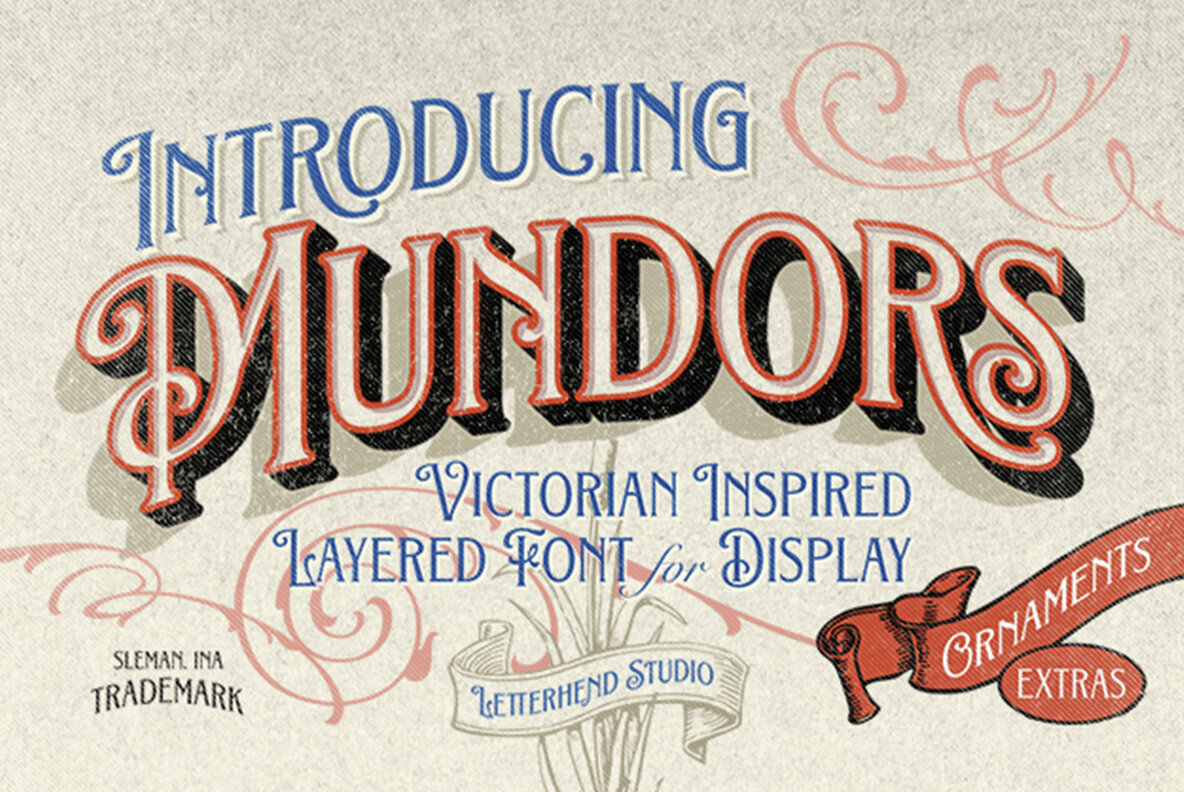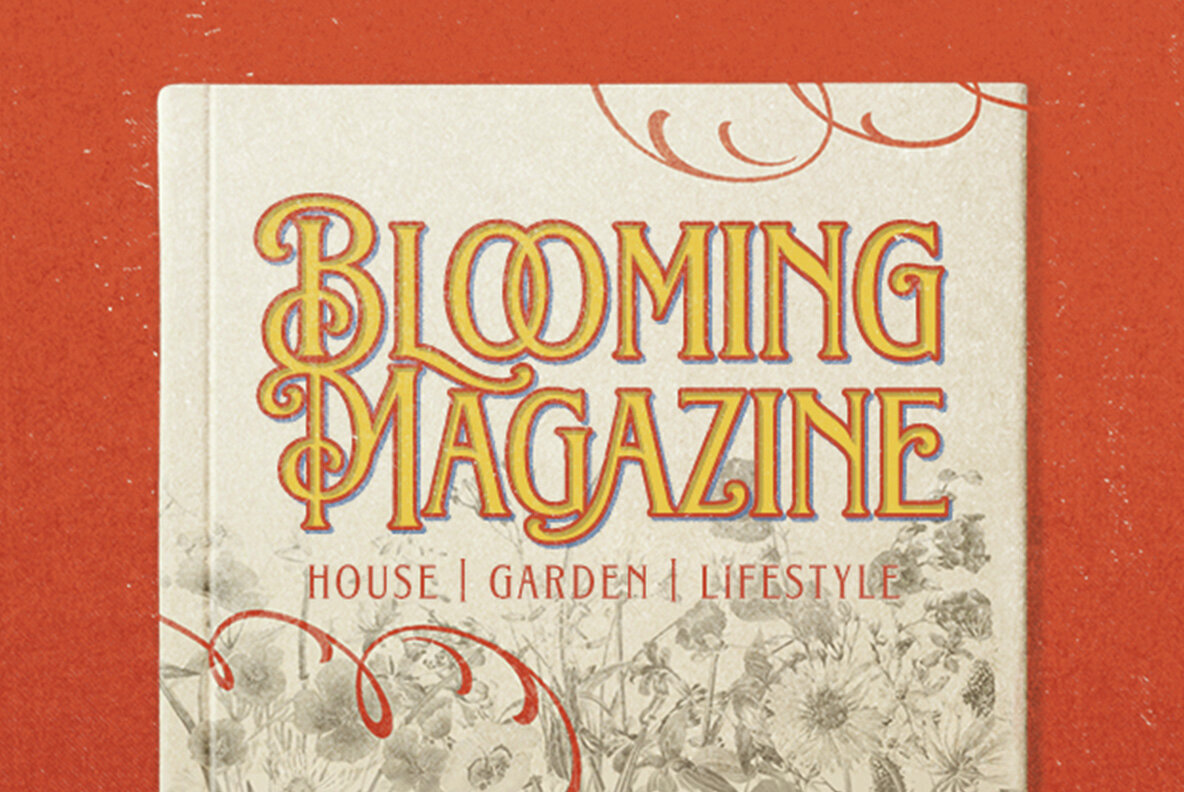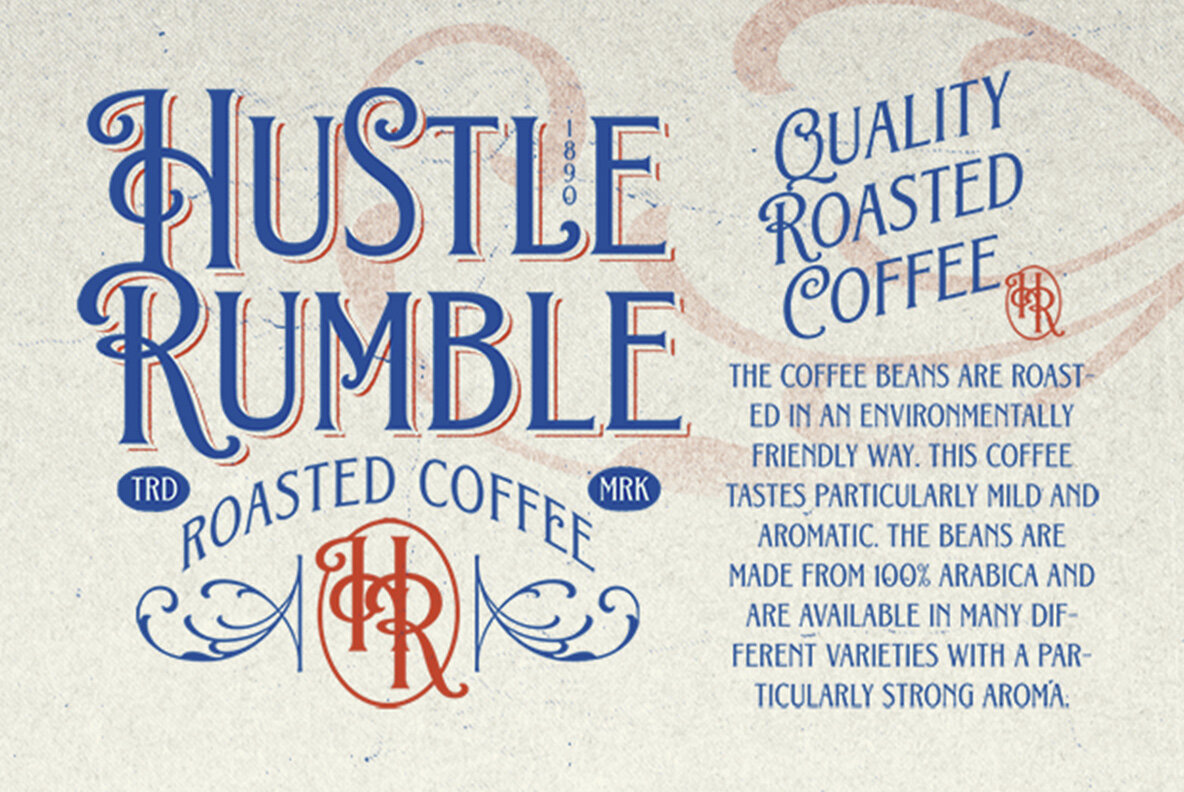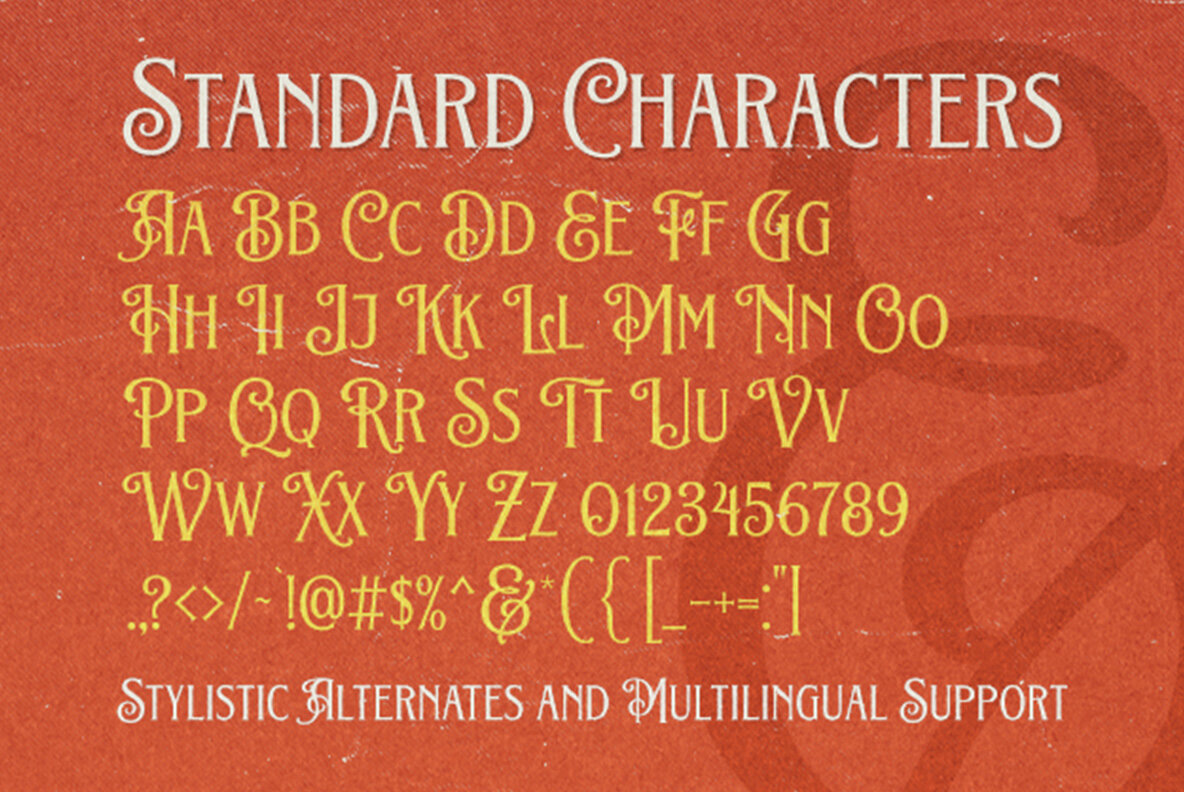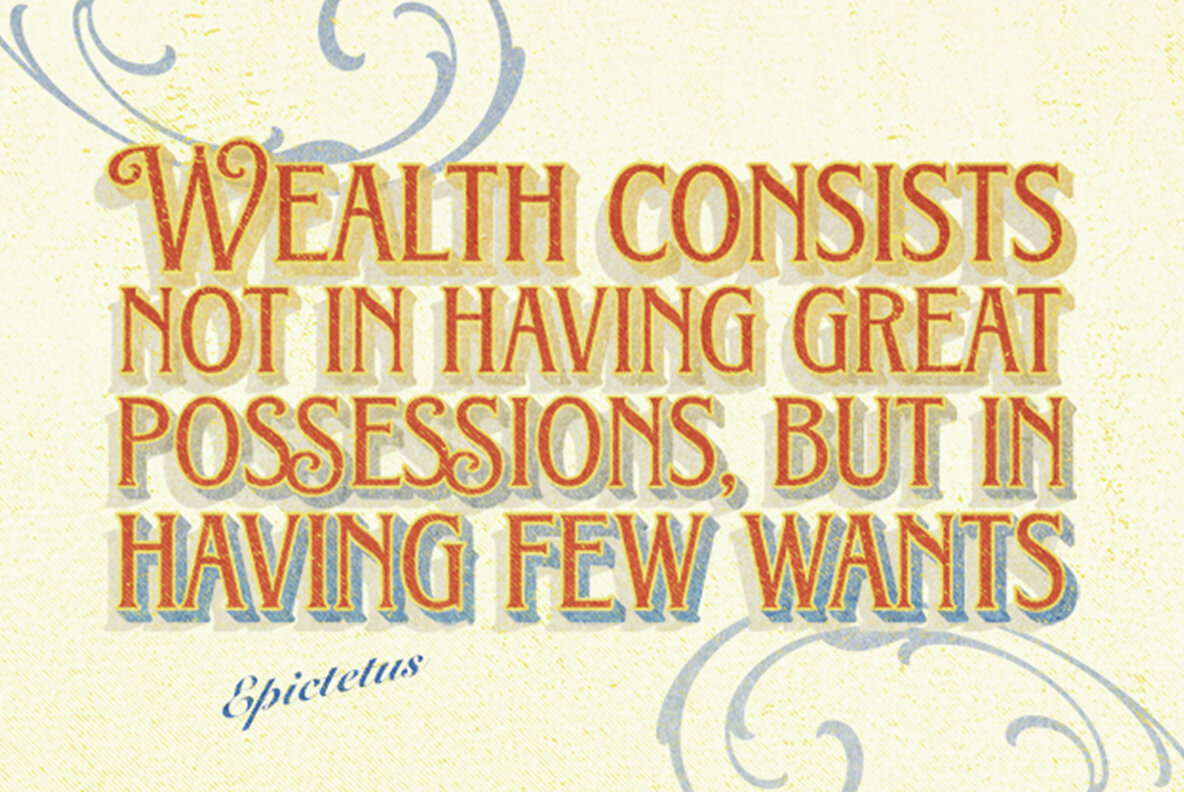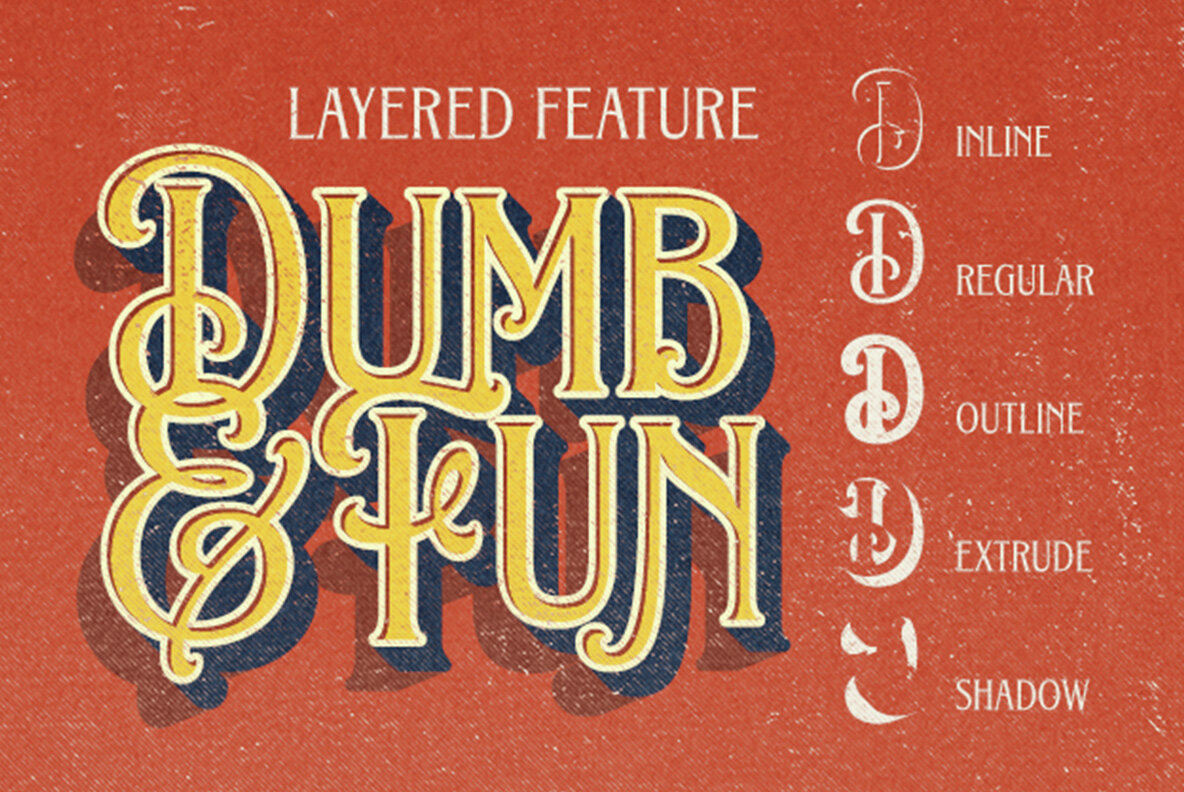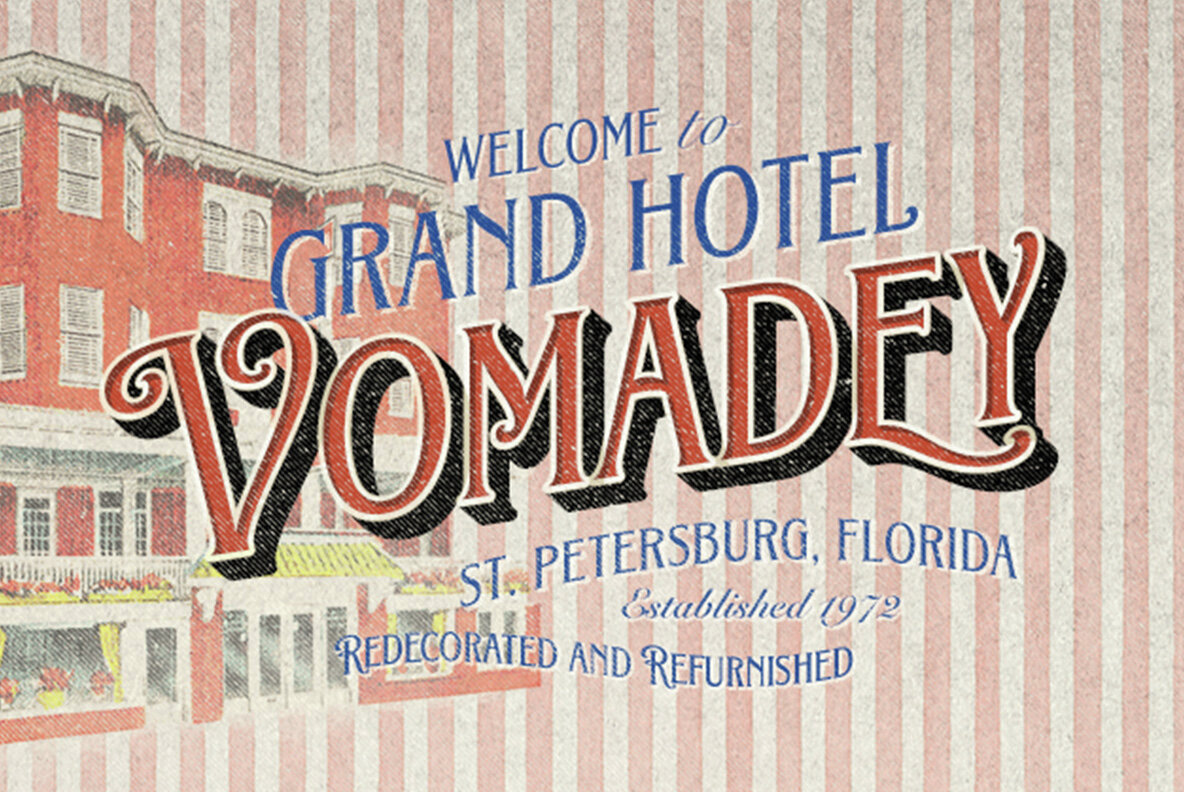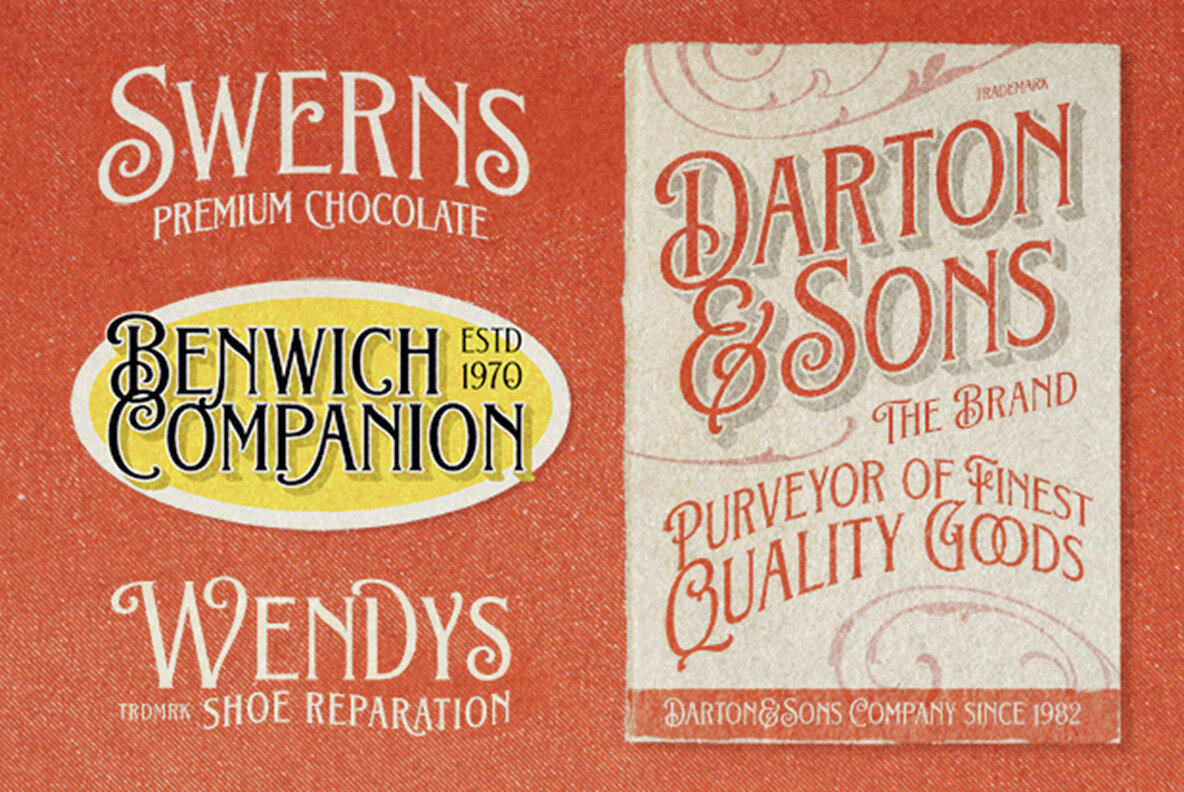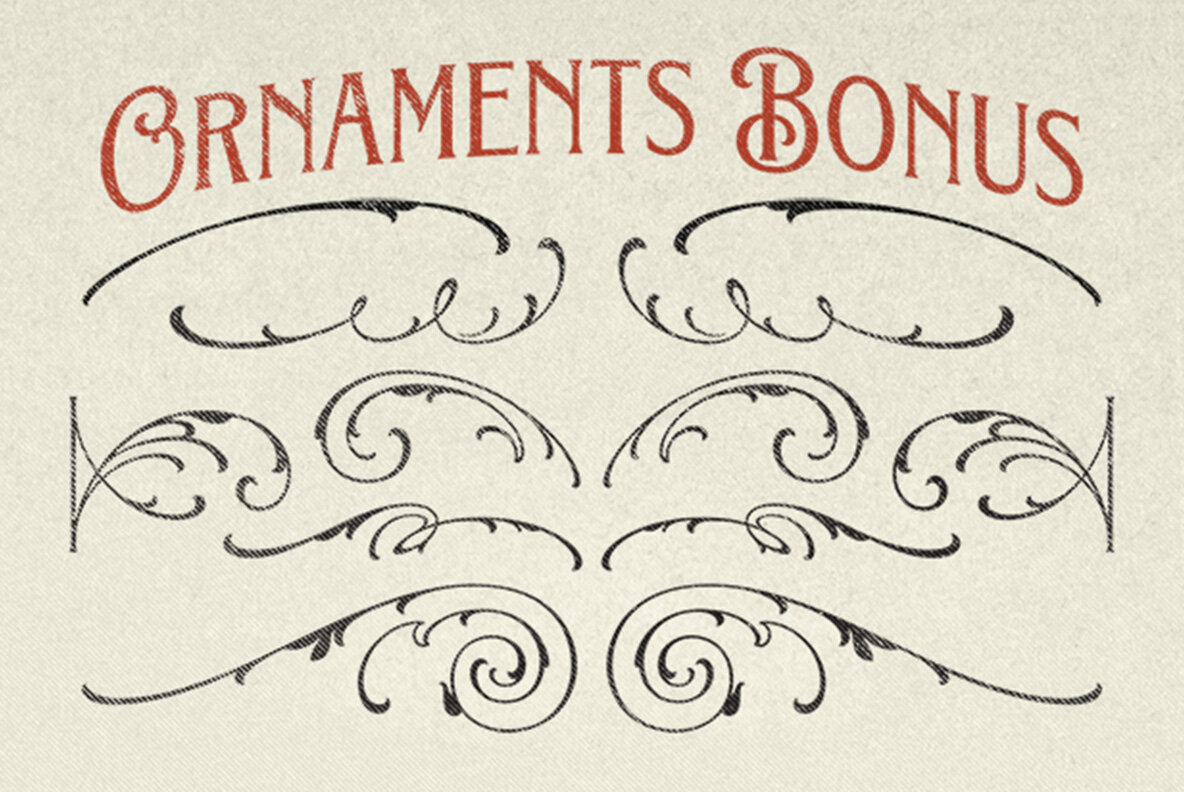
Mundors Font
Embrace the charm of eras past with Mundors, a bold and stylish font that draws inspiration from Victorian aesthetics. Featuring elegant curves, decorative serifs, and vintage swashes, this font effortlessly captures a classic and old-school vibe. Mundors is ideal for applications such as logos, posters, packaging, book covers, invitations, and signage. With the added touch of extra ornaments, your designs are poised to stand out and convey a unique flair. Maximize Mundors' full potential with programs that support OpenType features and Glyphs panels, such as Adobe applications and Corel Draw, allowing you to explore the font's extensive glyph variations.Mundors: A Victorian-Inspired Display Font